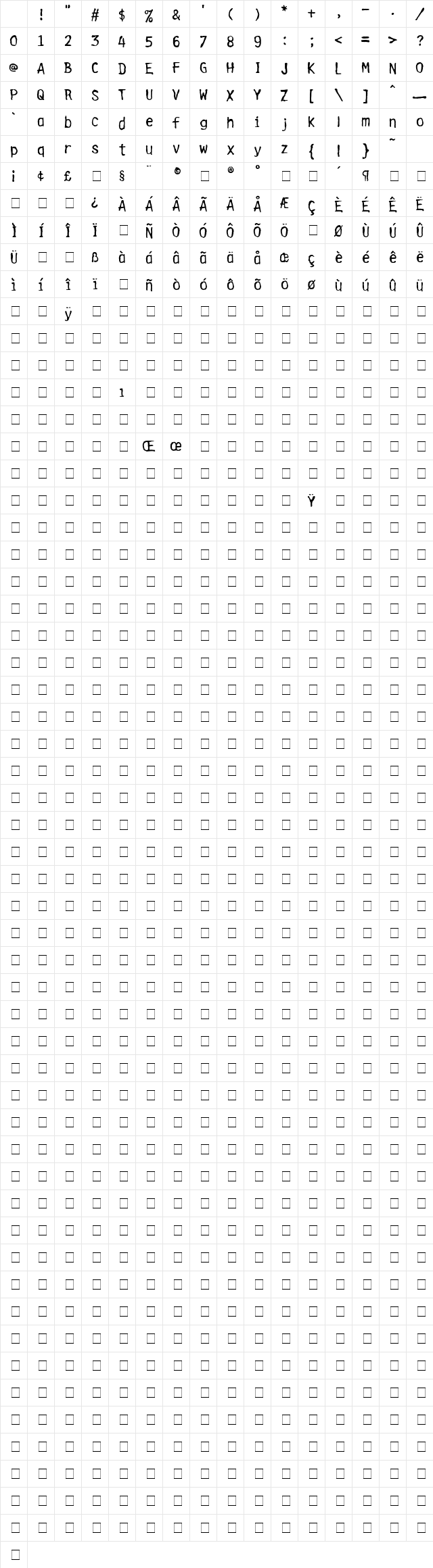
Complete Cleanhouse Medium glyph index. Displaying only characters natively supported by Cleanhouse Medium font.
Cleanhouse is a composed and adaptable typeface that performs quietly and consistently across a wide range of design contexts.